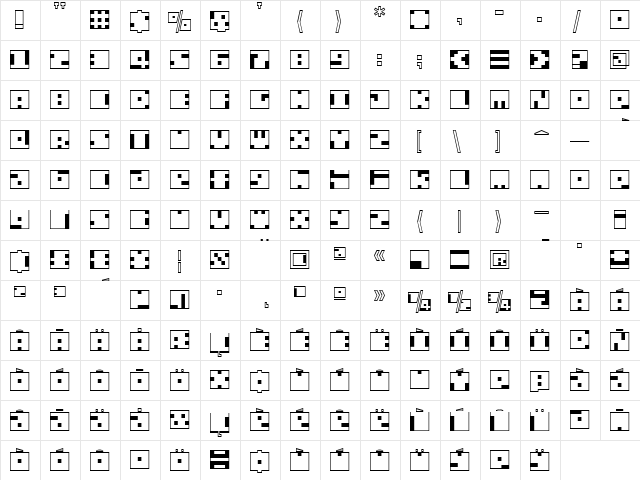
Total Regular
Design Context for Total Typeface
Total is a composed and adaptable typeface that performs quietly and consistently across a wide range of design contexts.
Pro Tip: Use Total in both headline and body roles to test its range before committing to a single application.